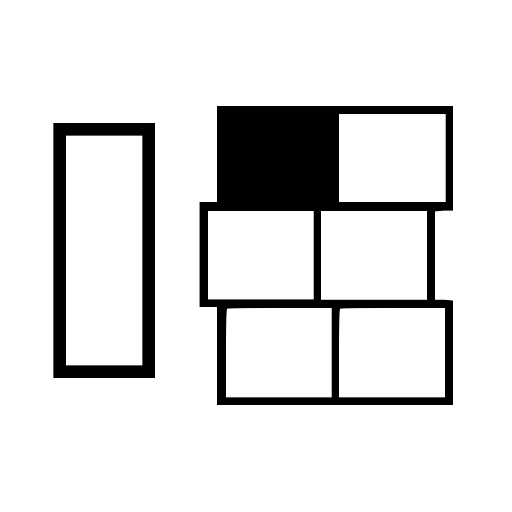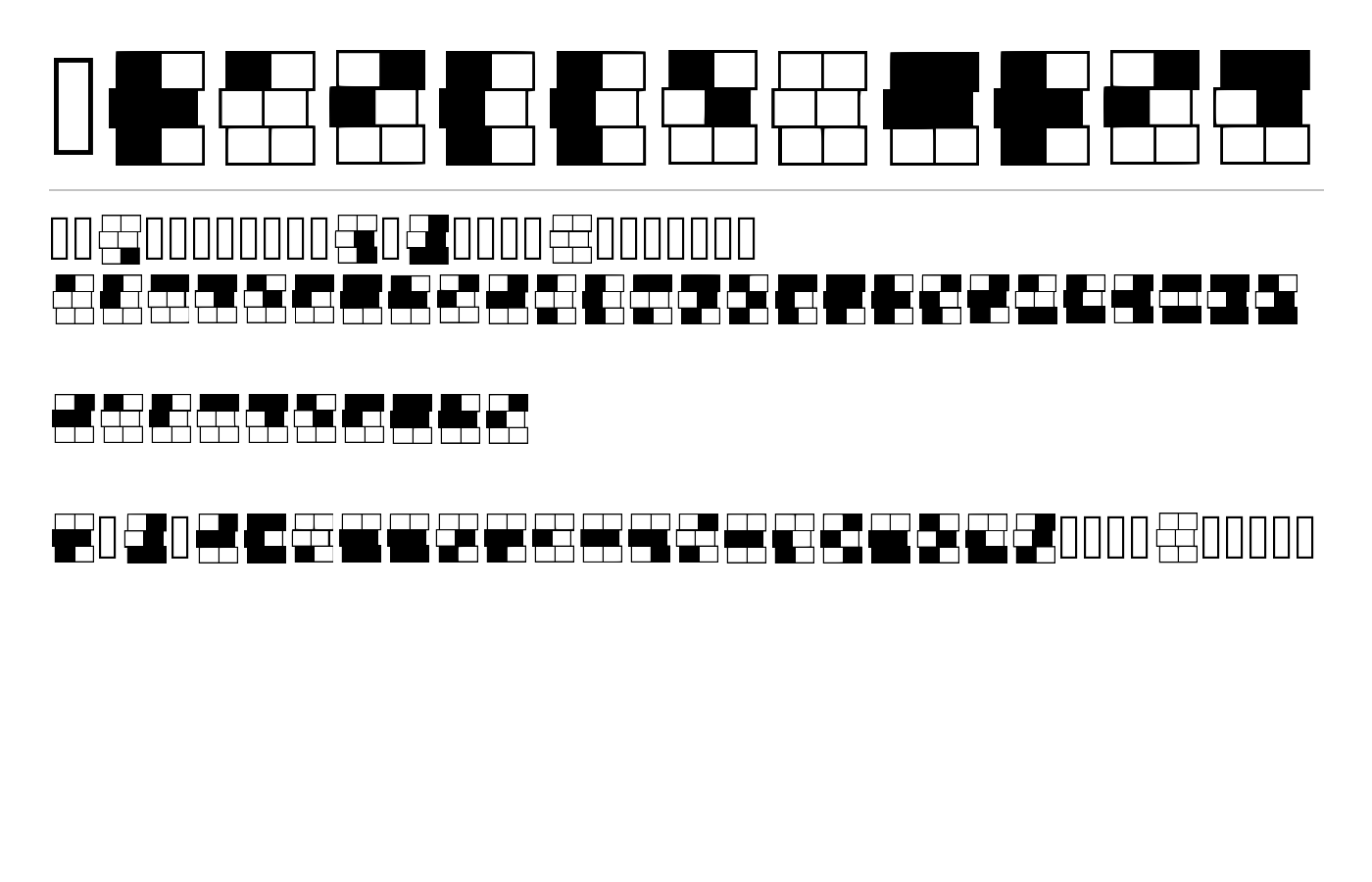
Braille_grid is a unique, geometric sans serif font that uses a modular grid of black and white squares to form abstract representations of letters and numbers. Its pixelated, high-contrast style creates a modern, digital feel that is both experimental and visually striking, making it ideal for creative projects, tech-themed designs, or bold graphic statements where legibility is secondary to artistic expression. This font works best in large display uses like posters, branding, or contemporary editorial layouts that want to evoke innovation and a futuristic touch.
Braille_grid Font
About Braille_grid Font